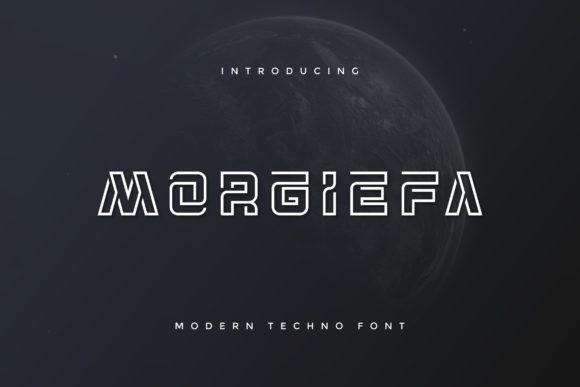
Morgiefa: The Bold Display Font for Modern Web Design
Morgiefa is a bold, modern display font with playful flair, ideal for attention-grabbing headlines, logos, and diverse design projects. As a web designer who spends hours tweaking kerning and adjusting line heights for mobile responsiveness, I know that choosing the right Display typeface can make or break a user's first impression. Morgiefa adds an immediate sense of personality to digital interfaces without sacrificing the clarity needed for high-conversion layouts.
How Morgiefa Elevates Website Headers and Hero Sections
Morgiefa is a bold, modern display font with playful flair, ideal for attention-grabbing headlines, logos, and diverse design projects. When you are building a landing page, the hero section is your most valuable real estate, and it demands a typeface that stops the scroll. Using Morgiefa for your main H1 tag creates an instant visual hierarchy that guides the user's eye directly to your value proposition. Unlike generic sans serif fonts that often blend into the background, this modern typography style injects energy into the top of your screen, making your brand feel approachable yet professional.
The weight and structure of Morgiefa ensure that even large text remains legible against complex background images or solid colors. Whether you are designing a SaaS product page or a creative portfolio, the distinct character of these Fonts helps establish a unique brand voice immediately. By leveraging its bold nature, you can reduce the reliance on heavy imagery to convey excitement, allowing the text itself to carry the emotional weight of your message.
Morgiefa for E-Commerce Banners and Product Landing Pages
Morgiefa is a bold, modern display font with playful flair, ideal for attention-grabbing headlines, logos, and diverse design projects. In the competitive world of online retail, your product banners need to communicate offers quickly and clearly. Morgiefa excels in this environment because its playful yet structured design prevents the "corporate" look that often alienates younger demographics. When used for promotional text like "Summer Sale" or "New Collection," it draws the eye effectively without appearing chaotic.
- Conversion Focus: Use Morgiefa for call-to-action buttons or sale badges to increase click-through rates by adding a touch of whimsy that encourages interaction.
- Visual Rhythm: Pair the bold display weights with a clean body font to create a balanced rhythm that keeps shoppers engaged as they scan product details.
- Brand Consistency: Ensure your shop banner matches your social media graphics by using the same Morgiefa styles across all channels for a cohesive identity.
Why Morgiefa Works for Digital Brand Identity and Logos
Morgiefa is a bold, modern display font with playful flair, ideal for attention-grabbing headlines, logos, and diverse design projects. A logo is the cornerstone of any digital brand, and finding a typeface that scales well from a favicon to a billboard is challenging. Morgiefa offers the versatility required for logo design, maintaining its integrity whether viewed on a small mobile app icon or a large website header. Its playful flair allows startups and creative agencies to stand out in crowded marketplaces where minimalist black-and-white logos dominate.
For designers creating brand kits, Morgiefa serves as a powerful asset that bridges the gap between serious business and creative expression. It is particularly effective for brands in the lifestyle, fashion, education, and entertainment sectors. By incorporating Morgiefa into your primary branding elements, you signal to your audience that your company is innovative and human-centric. This type of commercial font choice helps build trust by showing attention to detail and a willingness to take stylistic risks.
Morgiefa for Blog Graphics and Social Media Content
Morgiefa is a bold, modern display font with playful flair, ideal for attention-grabbing headlines, logos, and diverse design projects. Content creators constantly struggle to maintain visual consistency across blogs and social platforms. Morgiefa solves this by providing a distinctive look that works beautifully for featured image overlays and social media story headers. The font's readability ensures that your key messages are understood even when text is placed over busy photographs or gradient backgrounds.
When designing editorial-style blog posts, Morgiefa can be used for pull quotes or subheadings to break up dense text blocks. This improves the scanning behavior of readers, encouraging them to stay on the page longer. For digital marketers, having a reliable Display font means you can produce high-quality assets faster, ensuring your content looks polished and professional regardless of the platform.
Optimizing Morgiefa for Mobile Responsiveness and Readability
Morgiefa is a bold, modern display font with playful flair, ideal for attention-grabbing headlines, logos, and diverse design projects. One of the most critical aspects of web design today is ensuring your typography performs flawlessly on mobile devices. Morgiefa's geometric yet friendly structure translates well to smaller screens, provided you adjust the sizing correctly. Because it is designed with digital use in mind, the letterforms remain distinct even at smaller point sizes, preventing the blurring or merging common with more decorative scripts.